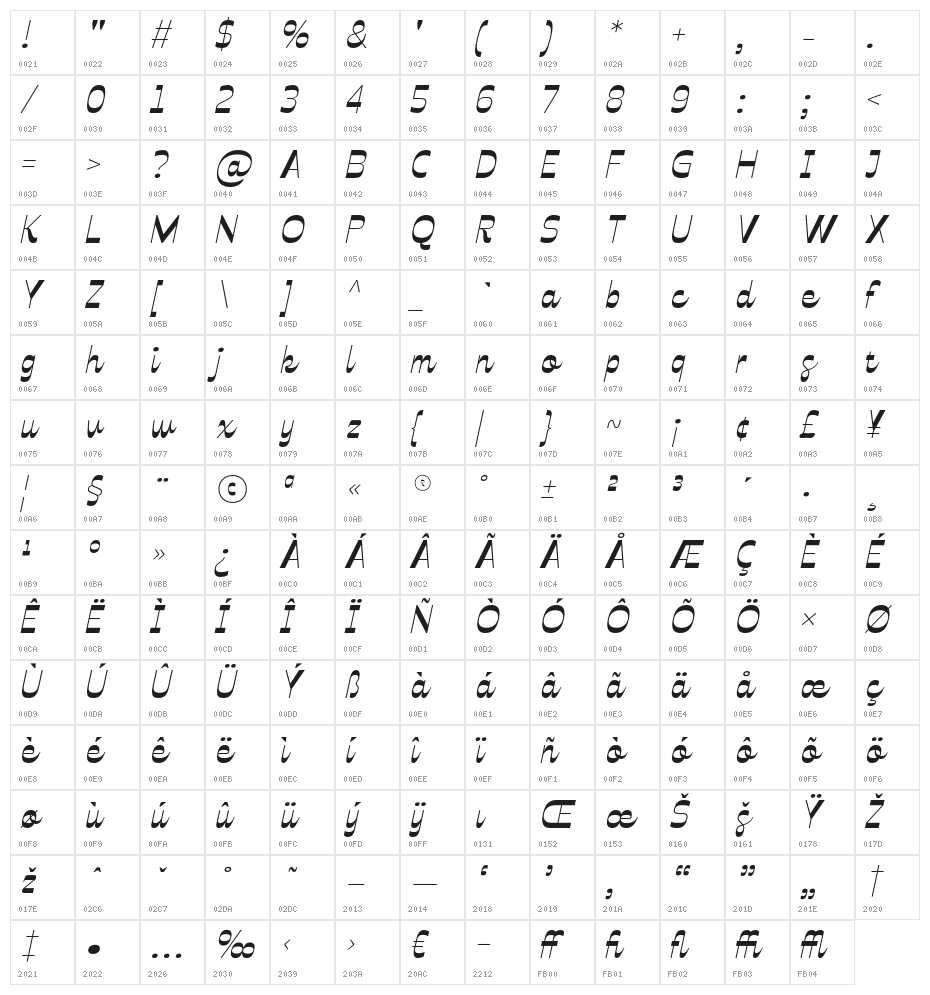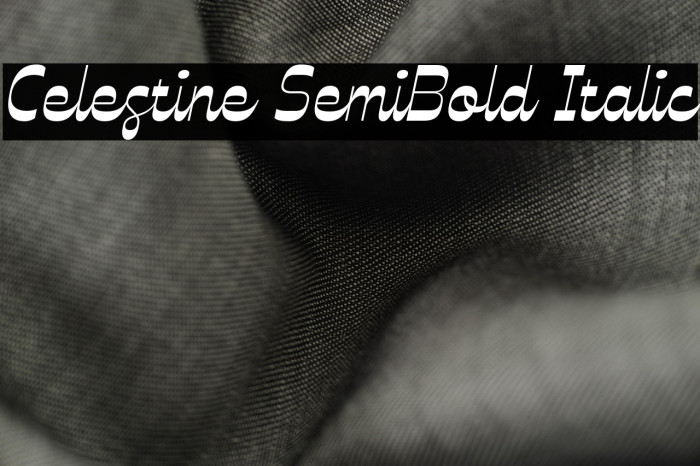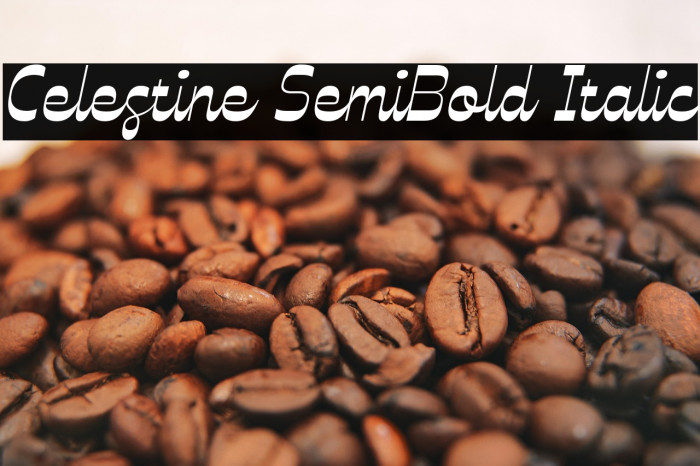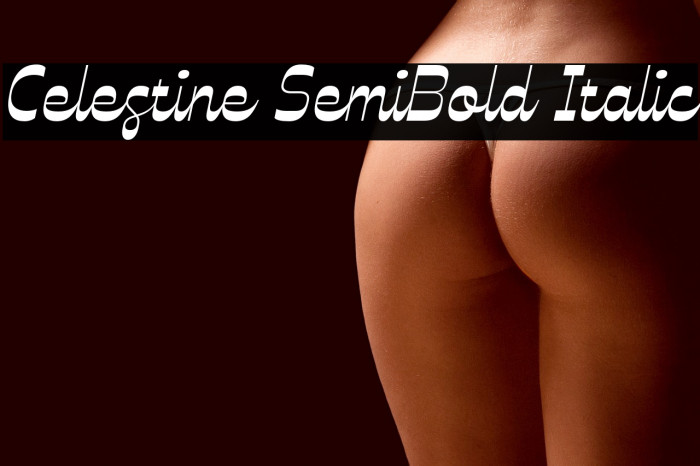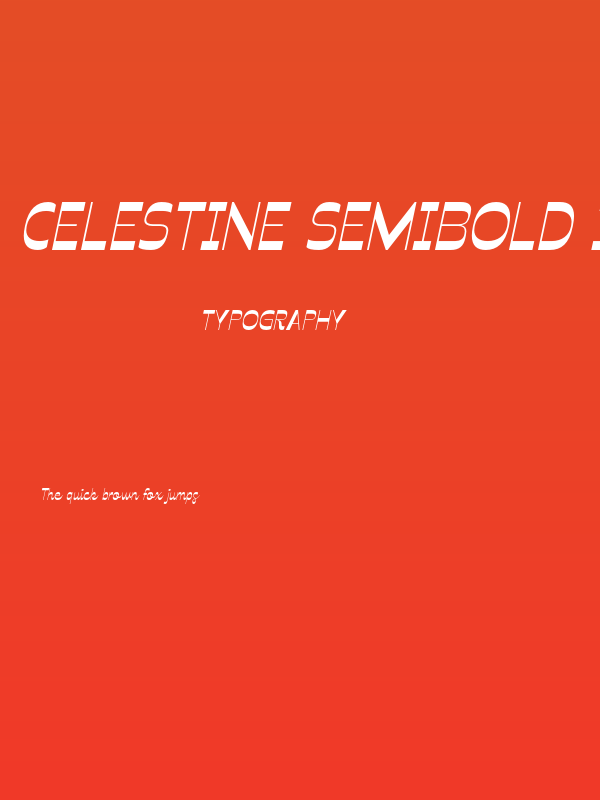
Celestine SemiBold Italic Font
Celestine SemiBold Italic Description
This font features a sleek and modern design with a semi-bold weight and an italic slant, giving it a dynamic and stylish appearance. The uppercase letters are tall and slightly condensed, providing a sense of elegance and sophistication. The lowercase letters maintain a consistent flow, enhancing readability while retaining a unique character. The numerals are clear and well-defined, making them suitable for various applications. Special characters are thoughtfully designed, ensuring they blend seamlessly with the overall aesthetic. The font's smooth curves and sharp edges create a balanced contrast, making it versatile for both digital and print media.